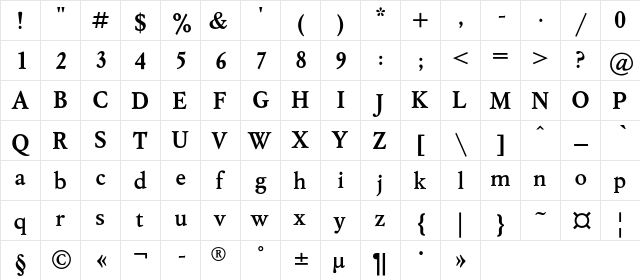
MyslC Bold
Design Context for MyslC Typeface
MyslC offers clean, dependable letterforms without strong stylistic allegiance, making it a practical choice for designers who need flexibility. Its bold stroke weight gives it real presence on the page.